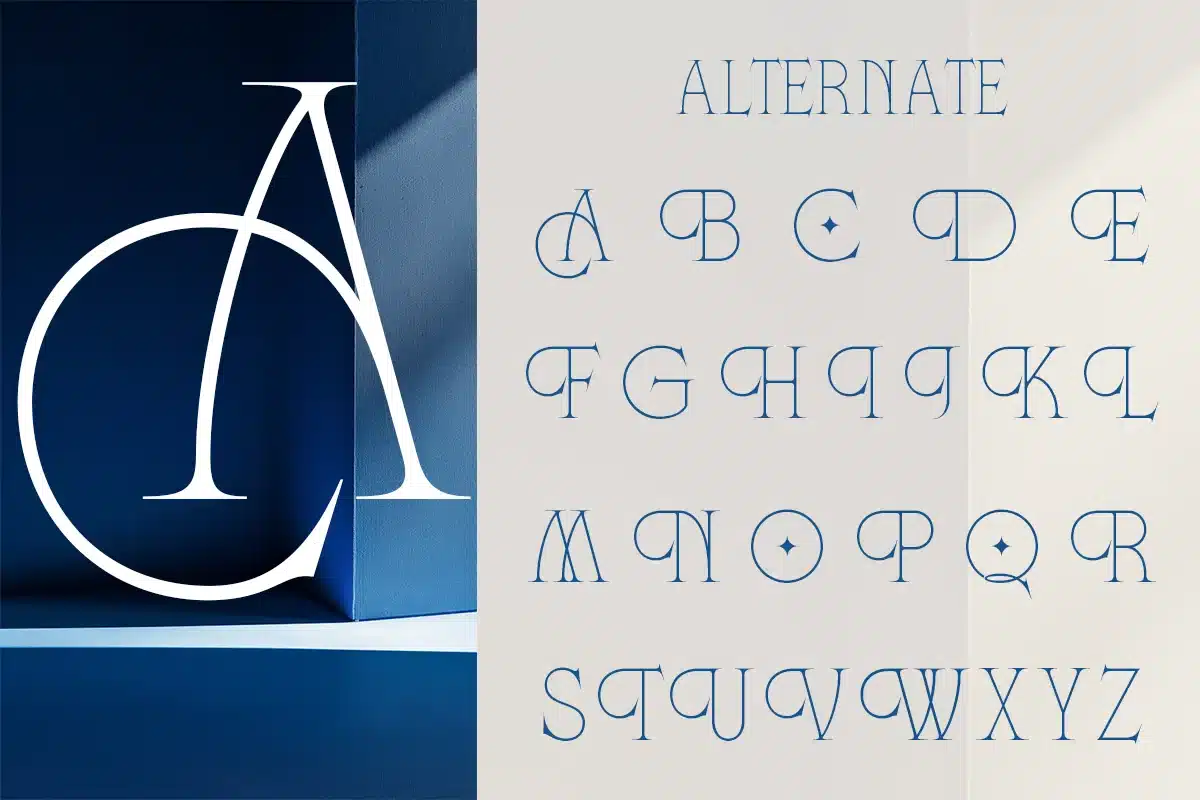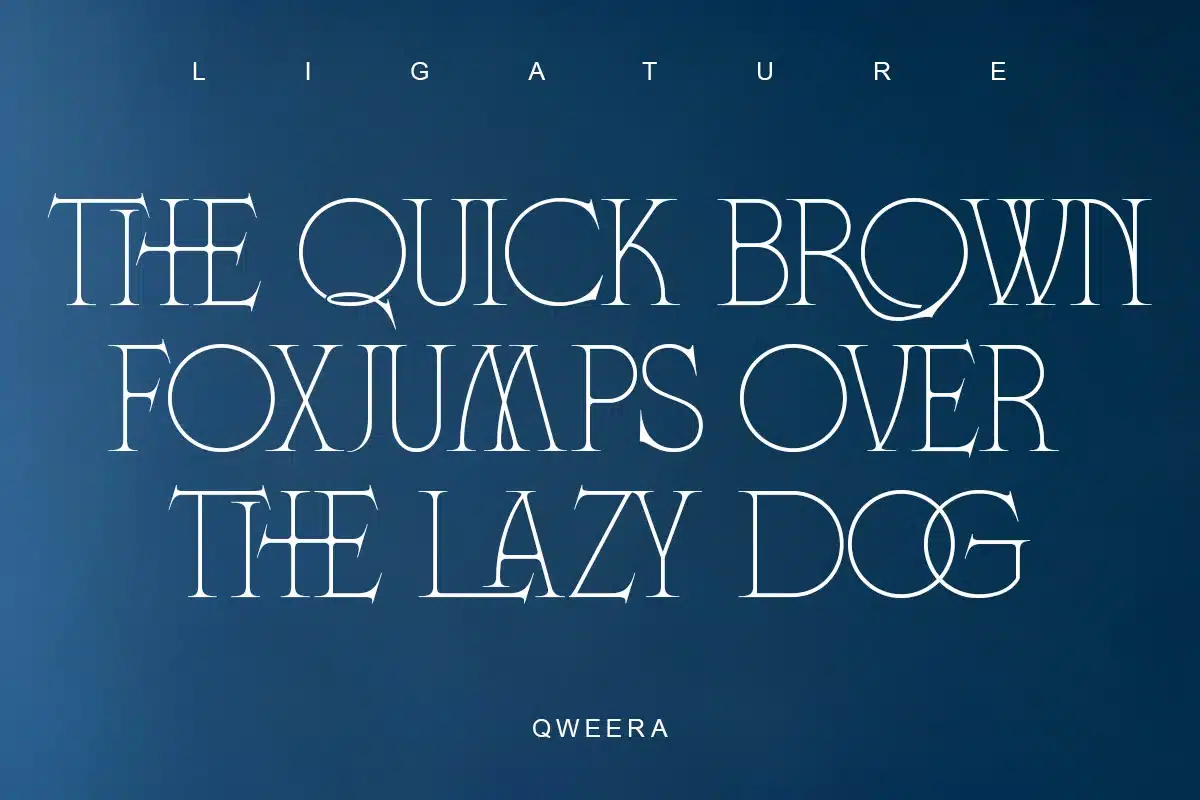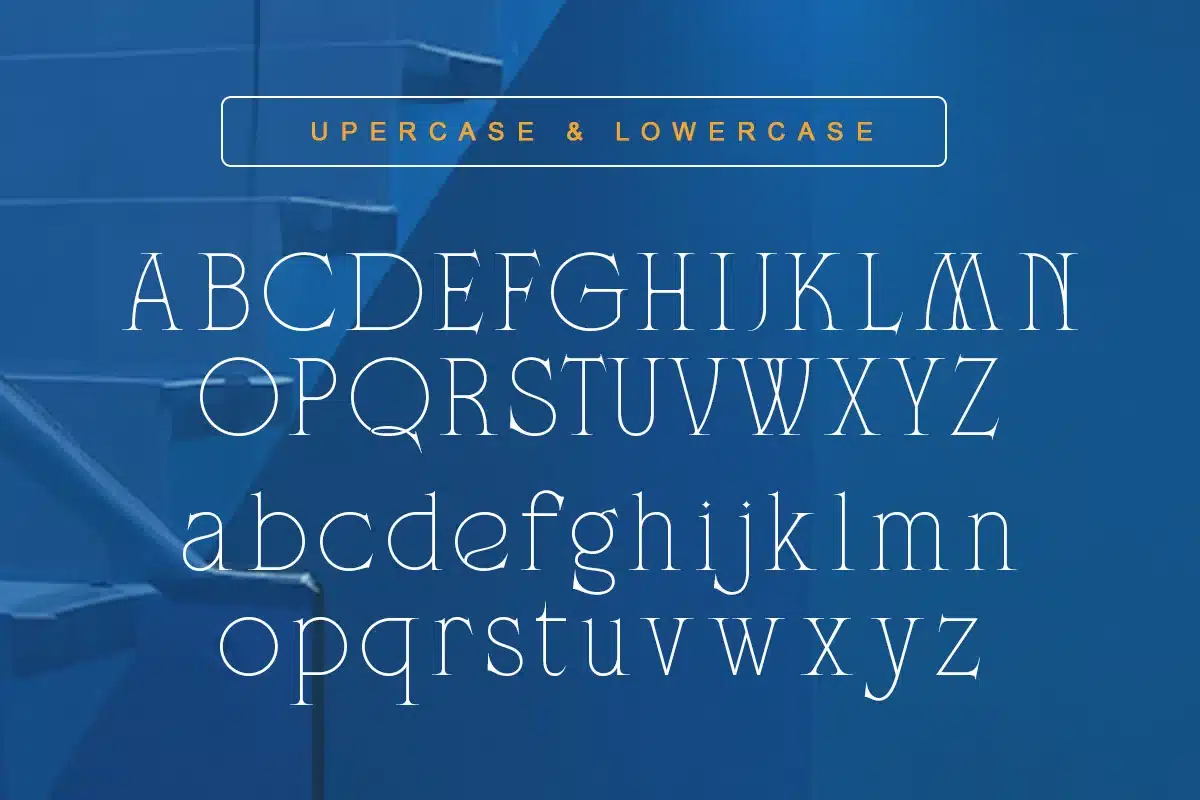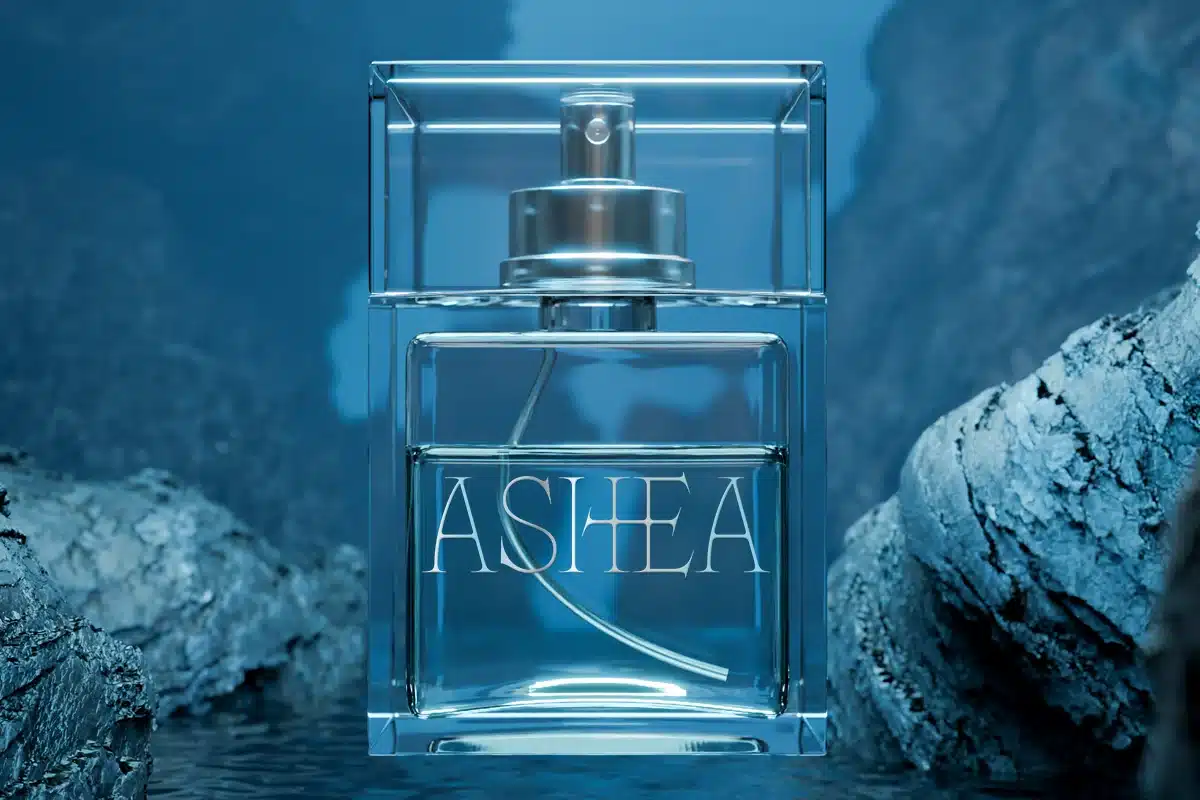
Elegant Minimal Serif Branding – Fonca Font
Fonca is a modern elegant serif typeface crafted with minimal structure and refined contrast. Designed for luxury branding and editorial typography, it delivers a clean and sophisticated visual identity.
With smooth letterforms and subtle elegance, Fonca is perfect for logos, fashion branding, packaging, and editorial layouts. Its modern serif construction ensures readability while maintaining a premium aesthetic.
Designed for designers who seek clean, elegant, and timeless typography.
Features
- Uppercase & lowercase
- Alternates & ligatures
- Minimal serif structure
- Regular & Italic
Branding, logo design, editorial headlines, packaging design, fashion branding, minimalist identity